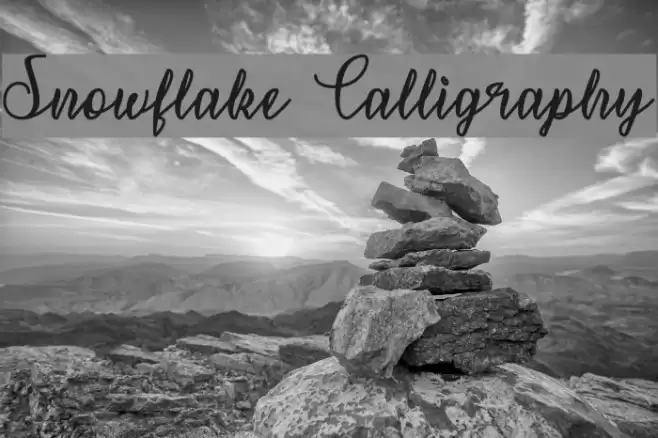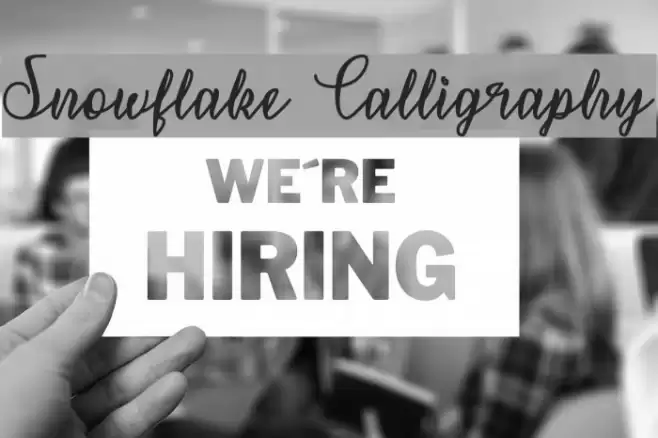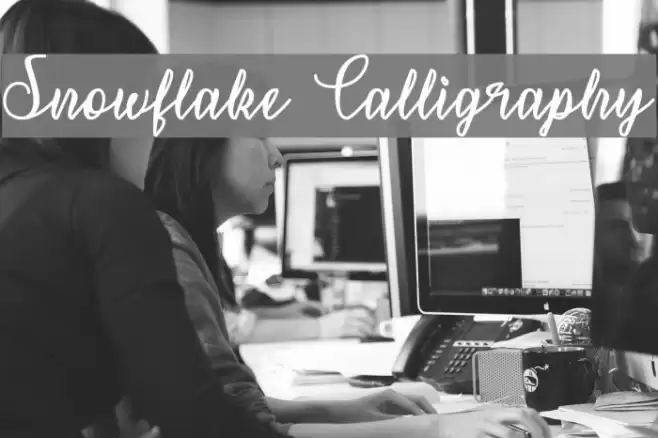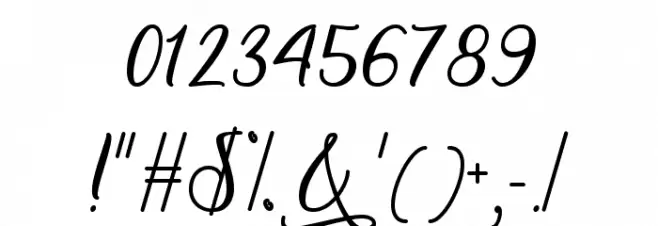
Snowflake Calligraphy Font
Snowflake Calligraphy Description
This elegant calligraphy font features fluid, interconnected strokes that create a sense of grace and sophistication. The uppercase letters are ornate, with sweeping curves and flourishes that give a sense of movement and fluidity. The lowercase letters maintain a consistent style, with smooth transitions between each character, enhancing readability while retaining an artistic flair. The numerals are designed to complement the letters, with a similar flowing style that maintains the overall aesthetic. Special characters are thoughtfully crafted to integrate seamlessly with the rest of the font, making it versatile for various uses. This font is perfect for projects that require a touch of elegance and sophistication, such as wedding invitations, formal event programs, or luxury branding.
An elegant calligraphy font with fluid, interconnected strokes and ornate flourishes from Uncategorized fonts.
- Proposed Projects: Ideal for wedding invitations, formal event programs, luxury branding, and elegant stationery.
- Overall Style: Elegant
- Use Case: Invitations, Branding, Stationery